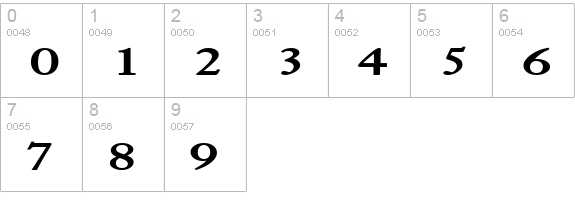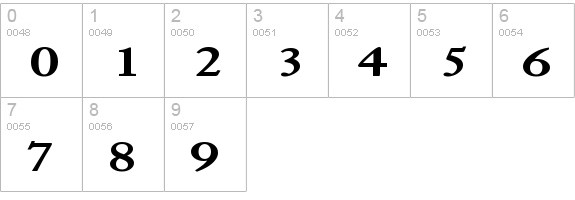
Bliss Extended Bold is a strong, high-contrast, extended-width variant in the Bliss typeface family \xE2\x80\x94 well suited to headlines, attention-grabbing titles, and strong calls-to-action.
Bliss Extended Bold is a striking typeface that exudes confidence and modernity. With its bold and elongated letterforms, it commands attention and makes a strong visual impact. Ideal for headlines, posters, and other design projects that require a bold statement, Bliss Extended Bold is a versatile font that can be used in a variety of creative applications. The best part? Bliss Extended Bold is available for free download at FontsMarket.com. Whether you're a designer looking to add a bold touch to your projects or a creative individual in need of a powerful font, Bliss Extended Bold is the perfect choice. Download it today and unleash the full potential of your designs with this sleek and impactful typeface.